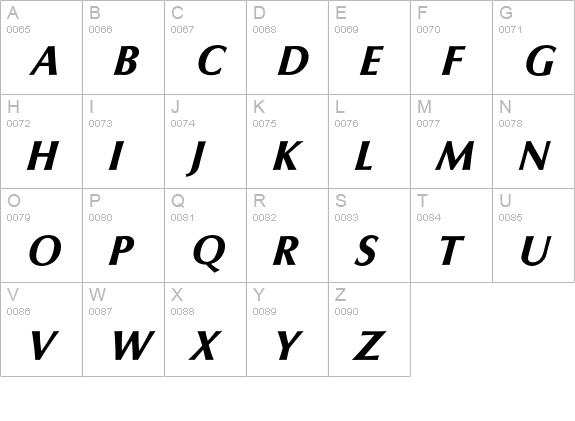
Columbia-BoldIta Font Details
Columbia-BoldIta is a striking and bold font that exudes elegance and sophistication. Its sleek and modern design makes it perfect for a wide range of design projects, from branding to advertising to editorial layouts. The unique italic style adds a touch of dynamism and flair to any text, making it stand out with a stylish edge. What's even better is that Columbia-BoldIta is completely free to download at FontsMarket.com. This means you can elevate your designs with this eye-catching font without breaking the bank. Whether you're working on a professional project or a personal creative endeavor, Columbia-BoldIta is sure to make a statement and leave a lasting impression. Download it today and see the difference it can make in your designs!